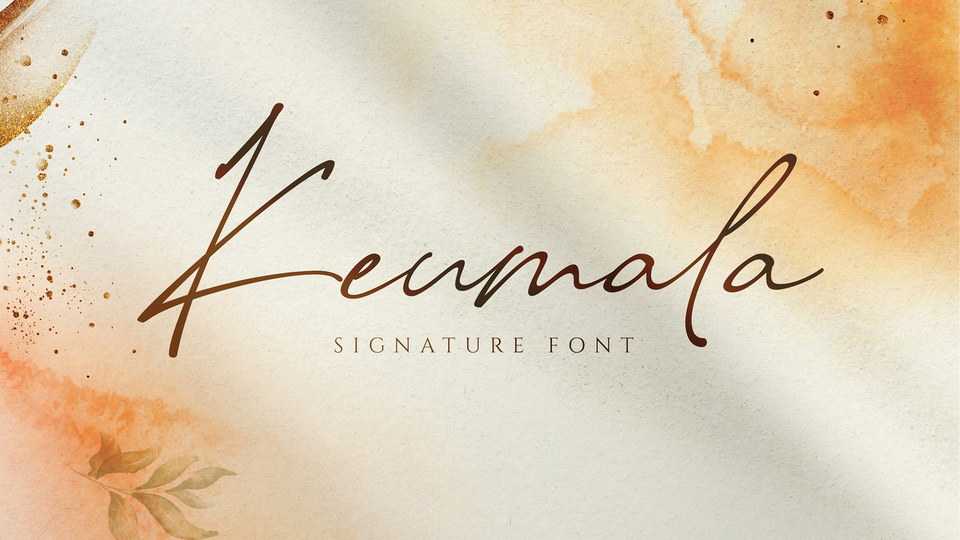
Download Keumala font, a natural, elegant, professional signature typeface with a unique feel and a stunning impact. Keumala is perfect to create signature logo and watermark for your agency and make product look flawless and eye-catching.